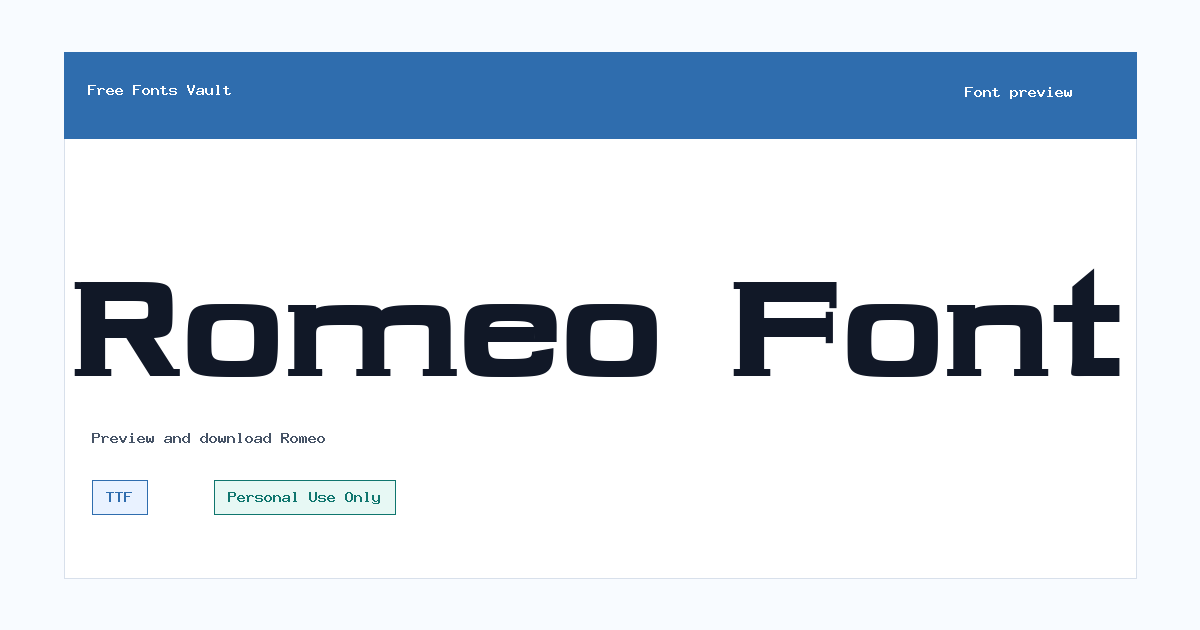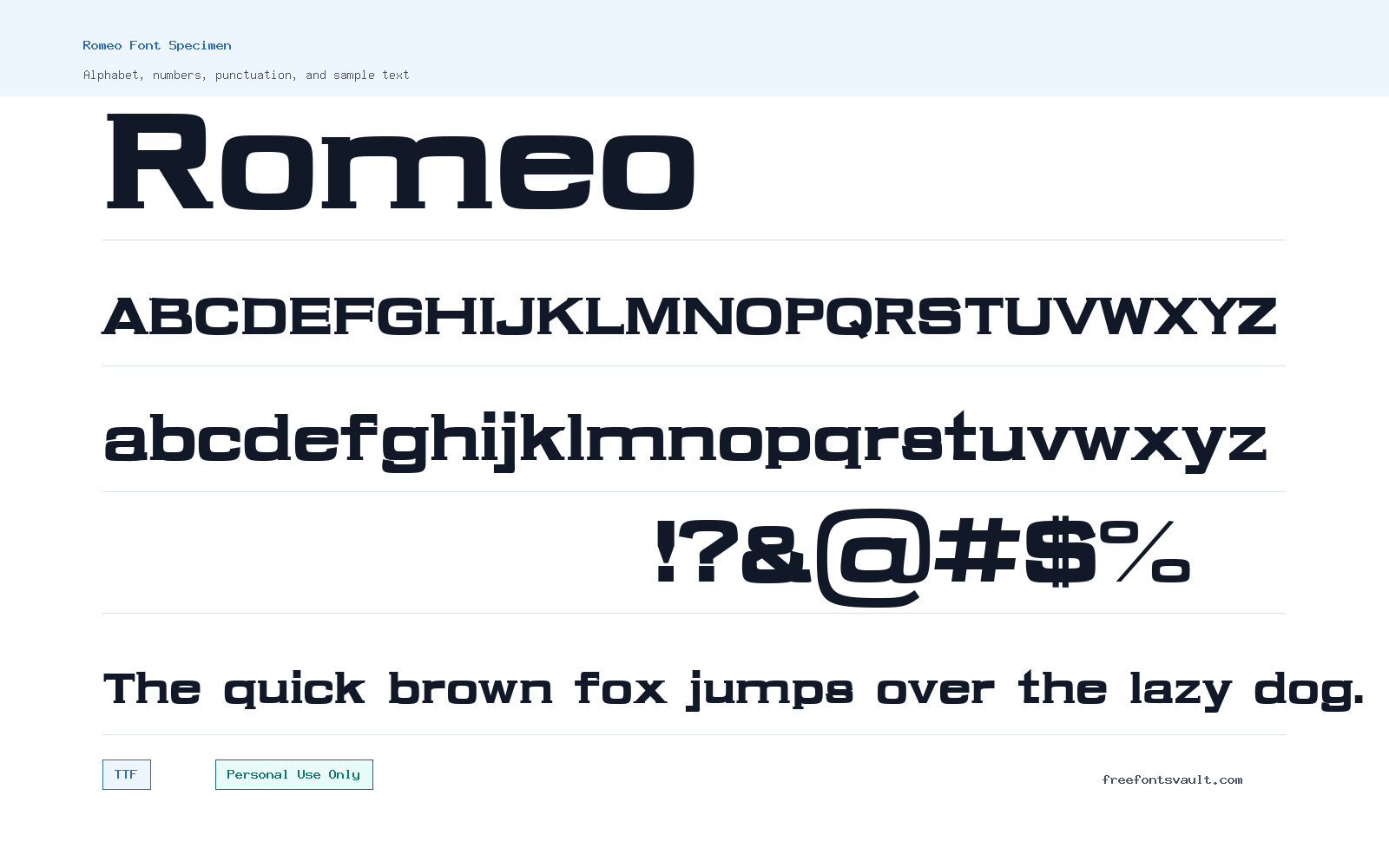
Romeo
Romeo Font
Romeo is presented as a slab serif font, which means its letterforms are likely to carry stronger, block-like serif details rather than delicate traditional serifs. That kind of structure can work well when you want text to feel clear, grounded, and a little more decorative than a plain sans serif. Since the download is a regular-weight TTF, it is best to test it in the size and wording you actually plan to use instead of judging it only from the font name.
For practical use, start with short words, headings, name designs, logo drafts, invitation text, labels, or poster lines. Slab serif fonts can look confident in larger sizes, but they may feel heavy or crowded in long paragraphs if spacing is tight. Try Romeo with simple supporting fonts: a clean sans serif for body copy, or a restrained serif if you want a more classic layout. Keep the decorative weight in the headline and let the other typeface handle readability.
• Slab serif style suited to display text, titles, and short layout elements
• Personal poster designs, quote graphics, labels, and social media artwork
• Headlines, name previews, invitation text, and display typography tests
Before downloading, type your real project text into the preview field and check uppercase, lowercase, numbers, and spacing. Slab serif fonts often work best when given enough room, so increase letter spacing slightly if the words feel tight. For longer text, pair Romeo with a simpler body font and keep Romeo for the main visual accent.
What style of font is Romeo?
Romeo is identified as a slab serif font. It is best tested in larger sizes for headings, labels, posters, and other short display uses.
What should I pair with Romeo?
Pair it with a clean sans serif for body text if you want contrast and easier reading. Keep Romeo for the headline or focal words so the layout does not feel too heavy.